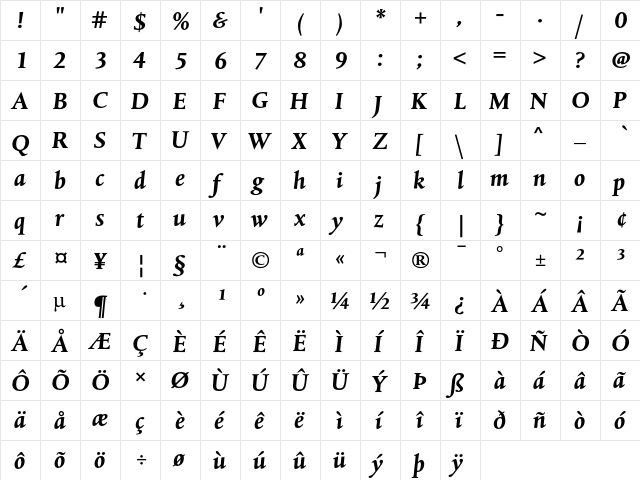
DTLAlbertinaT Bold Italic Font Preview
Design Context for DTLAlbertinaT Typeface
DTLAlbertinaT takes a measured approach to typography — its balanced proportions and neutral character make it a reliable workhorse for both digital and print work. Its italic angle brings a sense of urgency and motion to the letterforms. Its bold stroke weight gives it real presence on the page.
Pro Tip: Try DTLAlbertinaT for annotation and caption copy alongside an upright companion — the contrast in angle creates a dynamic but ordered typographic system.